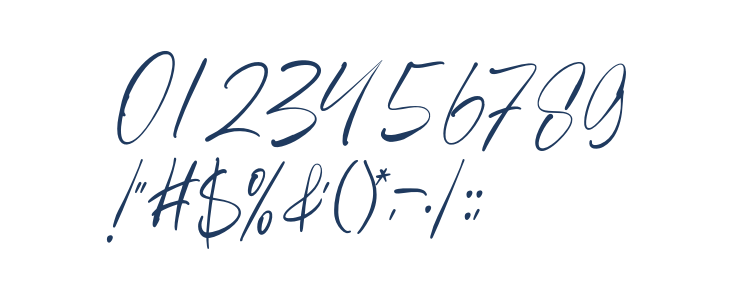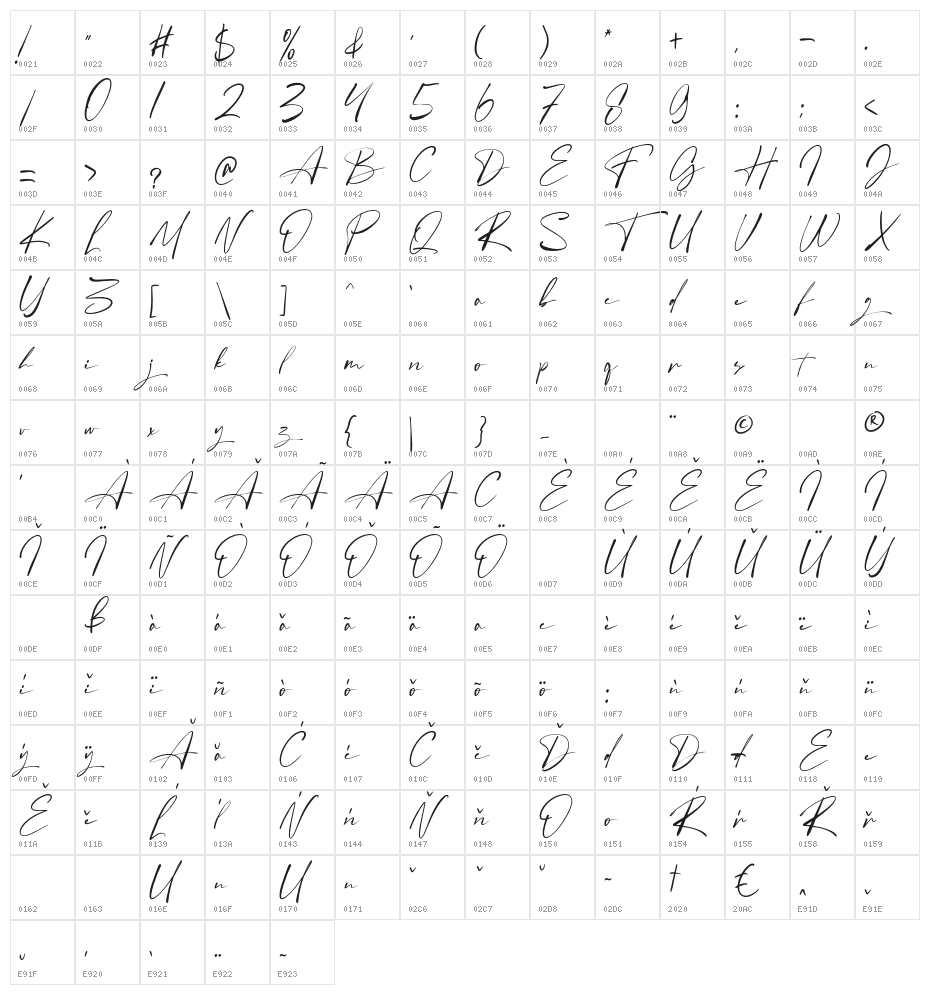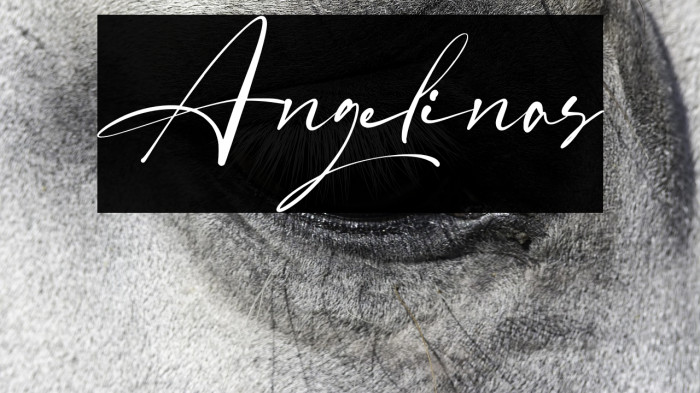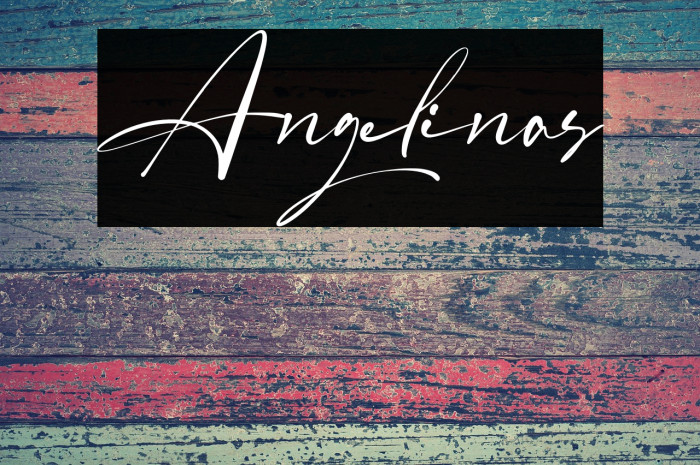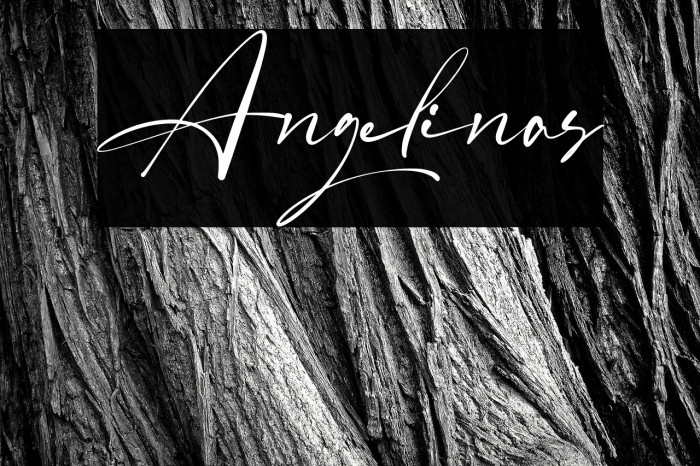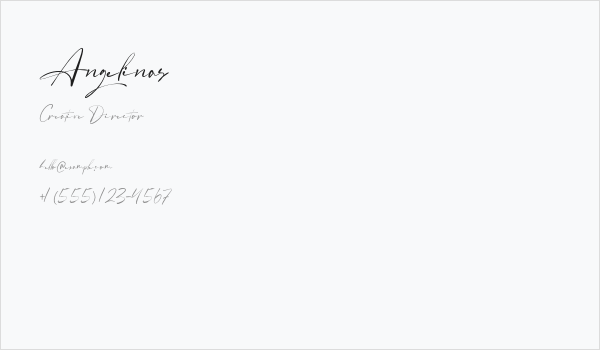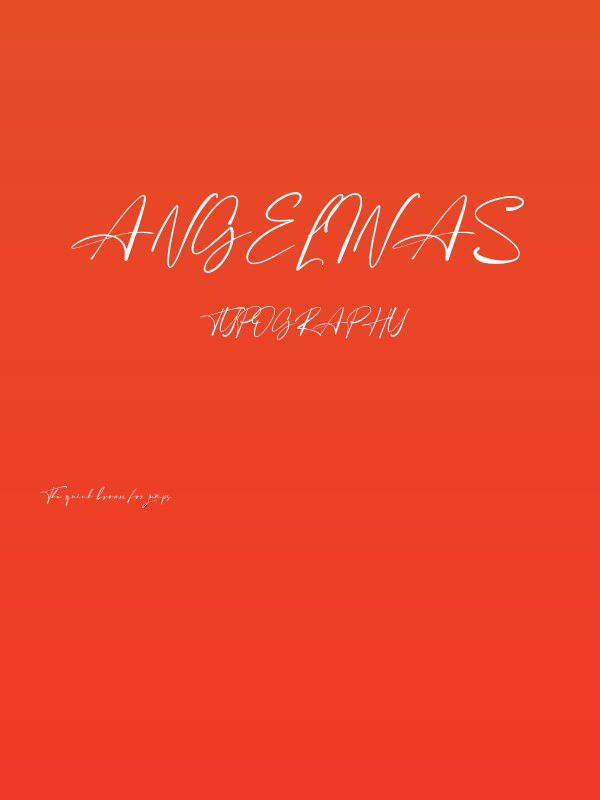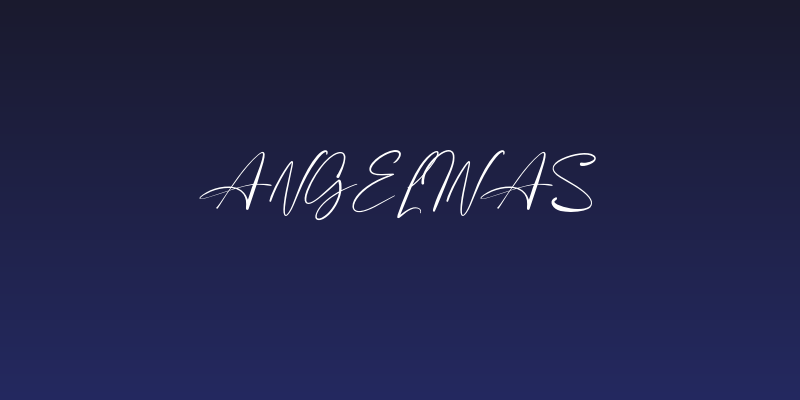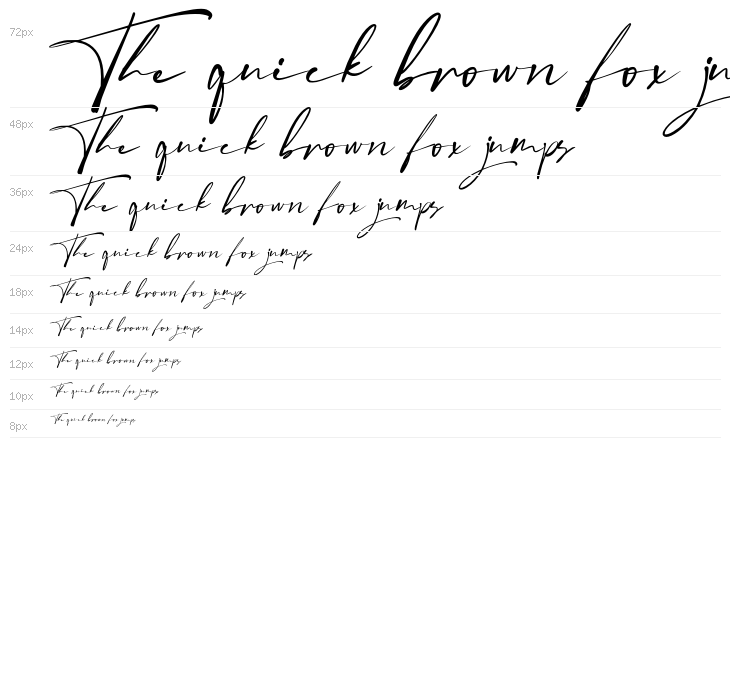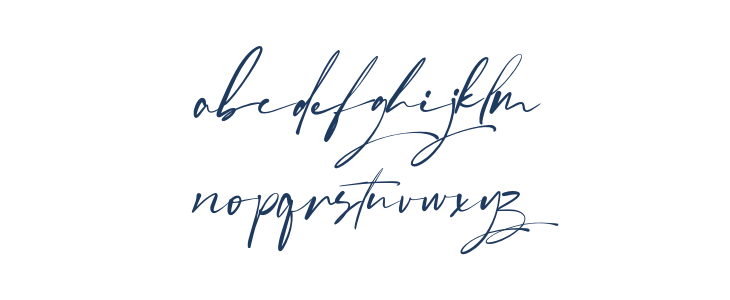
Angelinas Font
Angelinas Description
This font exudes elegance and fluidity, characterized by its cursive, handwritten style. The letters are connected with smooth, flowing strokes, giving it a natural and organic feel. The uppercase letters are bold and expressive, while the lowercase letters maintain a consistent rhythm and grace. The numerals and special characters are crafted with the same attention to detail, ensuring a cohesive look across all elements. This font is perfect for projects that require a personal touch, such as invitations, greeting cards, or branding materials. Its artistic flair makes it stand out, yet it remains legible and versatile.
| Overall Style | Elegant, Artistic |
| Proposed Projects | Ideal for wedding invitations, personal branding, greeting cards, and artistic projects. |